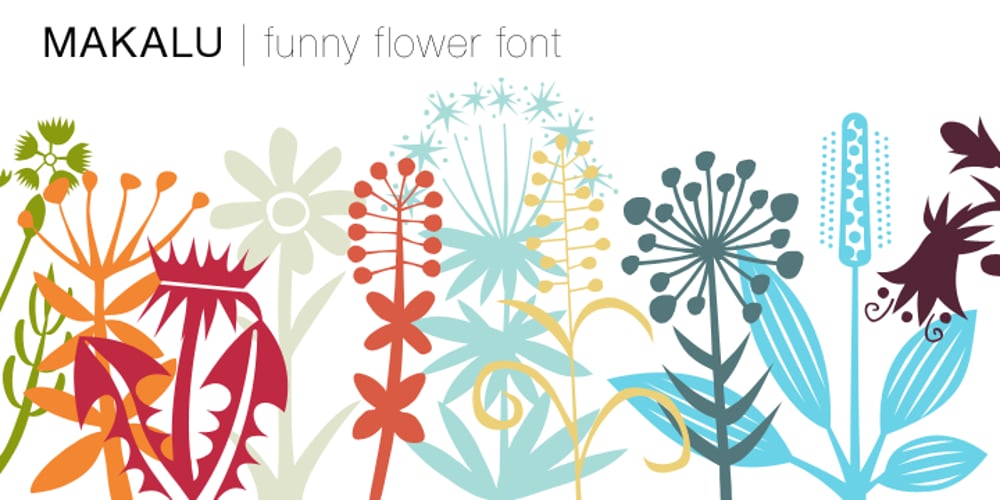
Makalu Font Family was designed by published by Juraj Chrastina. Makalu contains 1 styles and family package options. Makalu is a funny flower font inspired by the lovely drawings of the famous illustrator Zdeněk Miler (best known for his small mole). His flowers are at the same time cartoony and realistic. Enjoy this choice of 27 original and distinctive illustrations while creating your designs.